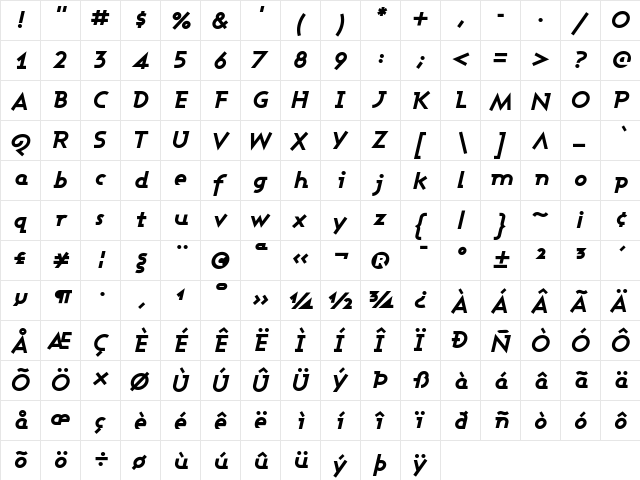
Ashby Extra Bold Regular
Design Context for Ashby Extra Bold Typeface
Ashby Extra Bold offers clean, dependable letterforms without strong stylistic allegiance, making it a practical choice for designers who need flexibility. The heavy weight commands attention and anchors typographic hierarchies.